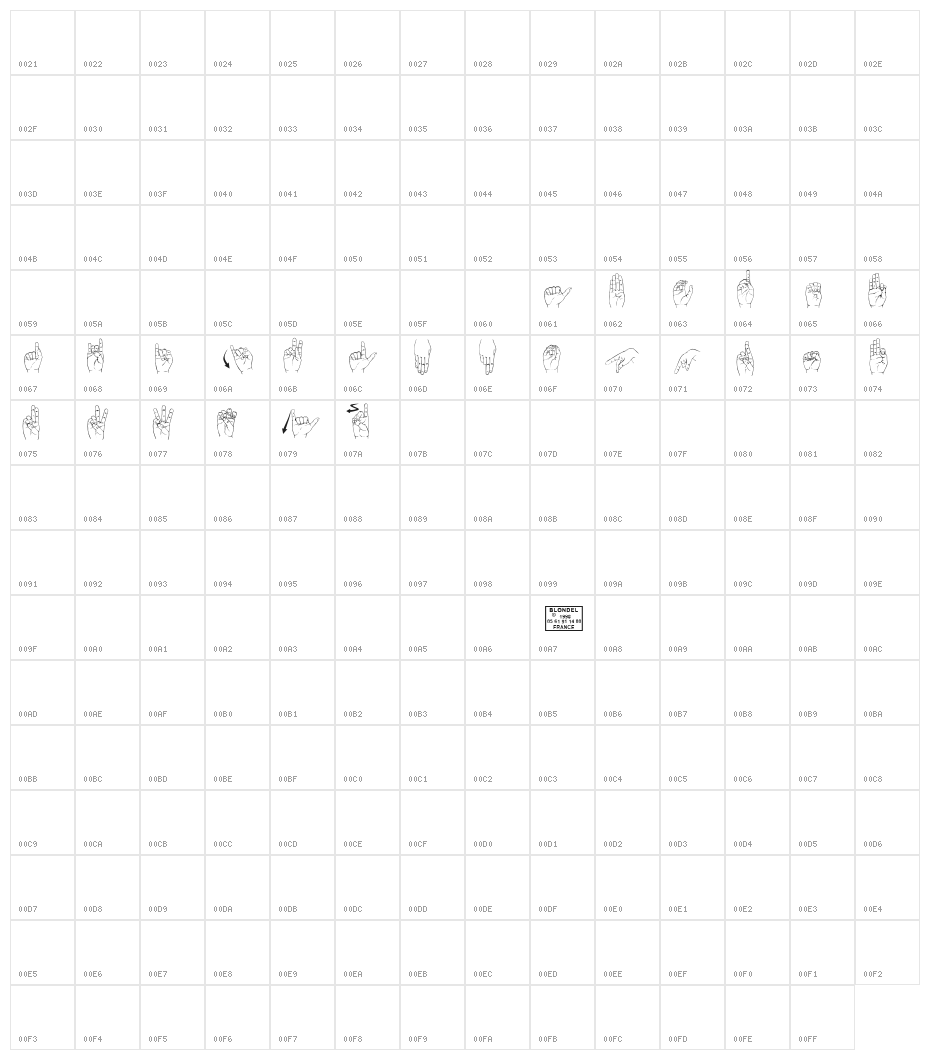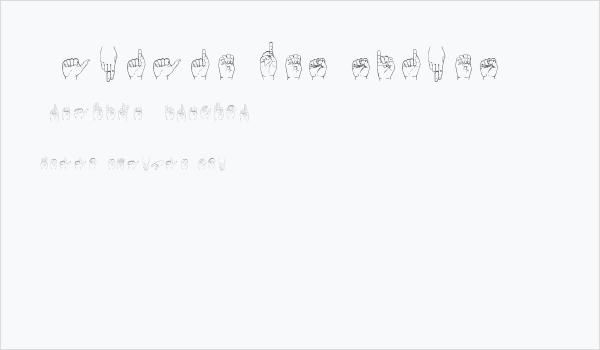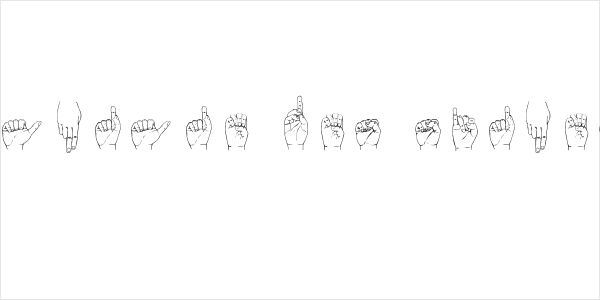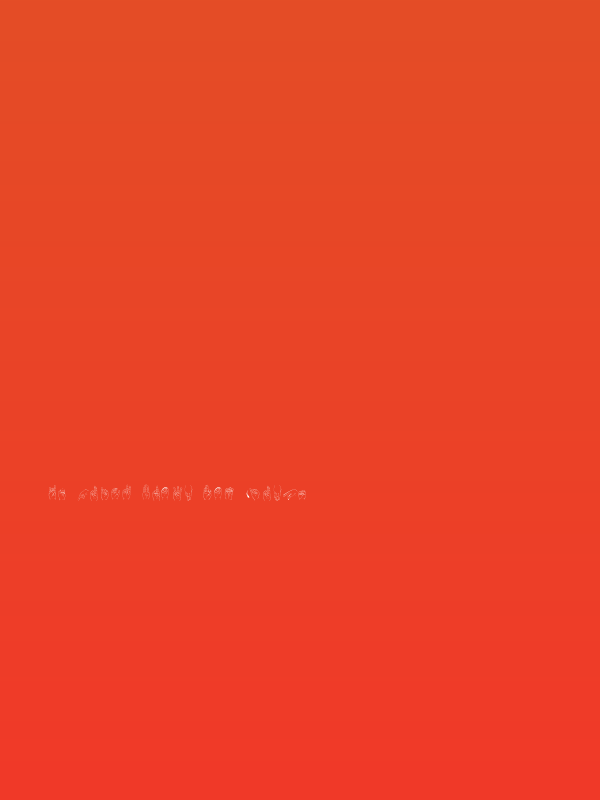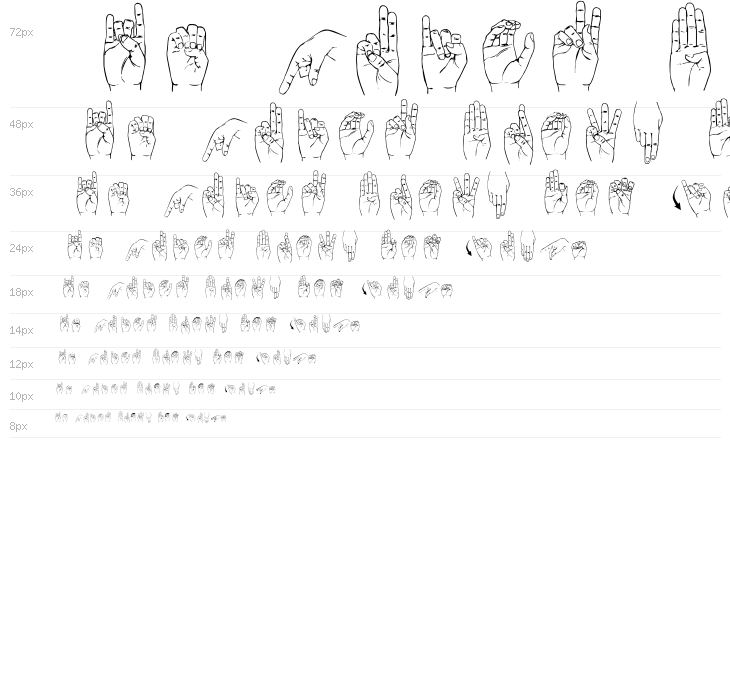
Langage des signes Font
Langage des signes Description
A series of hand-drawn illustrations depicting the manual alphabet for sign language, with each hand gesture representing a different letter. The drawings are simple, clear, and outlined in black, focusing on the shape and position of the fingers.
| Overall Style | Educational, Illustrative, Informative |
| Use Case | Instructional materials, Educational graphics, Awareness campaigns |
| Proposed Projects | Educational posters, sign language learning materials, classroom charts, accessibility guides. |